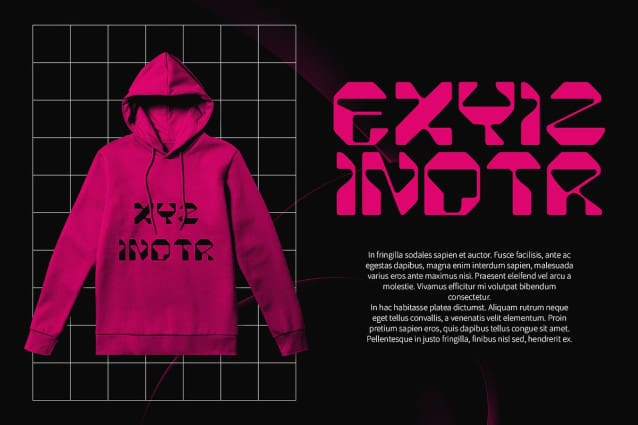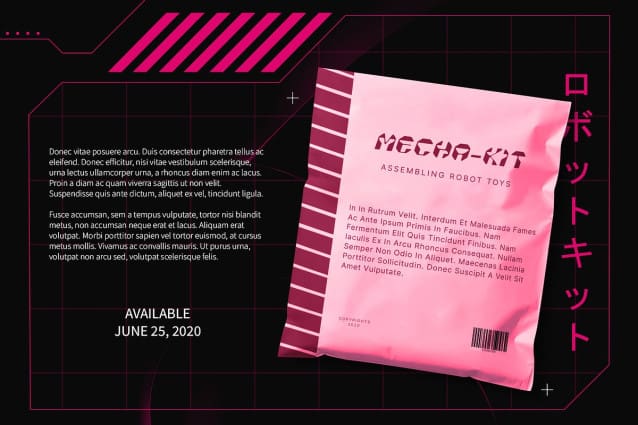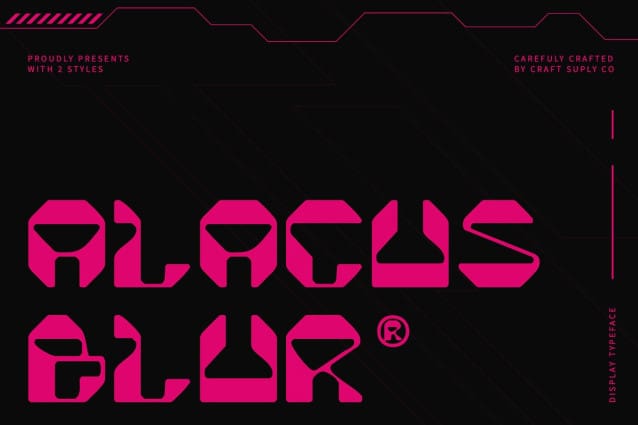
Alacus Blur Font
Alacus Blur is a striking display font that embraces a futuristic style inspired by mecha aesthetics. Featuring bold and innovative geometric shapes, it delivers a modern and dynamic appearance. The design elements are crafted to evoke a sense of advanced technology and cutting-edge innovation.
Modern and Engaging Aesthetics With its distinctive blend of sophisticated design and clear structure, Alacus Blur ensures both visual impact and readability. The font’s engaging details and avant-garde touches make it a standout choice for various typographic applications. It achieves a balance between modern aesthetics and practical functionality, providing an eye-catching and effective solution for contemporary design needs.
Versatile for Innovative Applications Ideal for a wide range of uses, from digital interfaces and technology branding to futuristic print designs, Alacus Blur brings a unique avant-garde flair to any project. Its bold geometric design and futuristic style make it perfect for applications that seek to convey a strong sense of modernity and sophistication, while its clear readability ensures it performs effectively across different mediums.
Sophisticated and Forward-Thinking Alacus Blur combines the sophistication of modern design with the clarity needed for impactful communication. Whether used in digital environments or print media, this font adds a distinctive touch of innovation and style, making it an excellent choice for projects aiming to make a memorable impression with a futuristic edge.